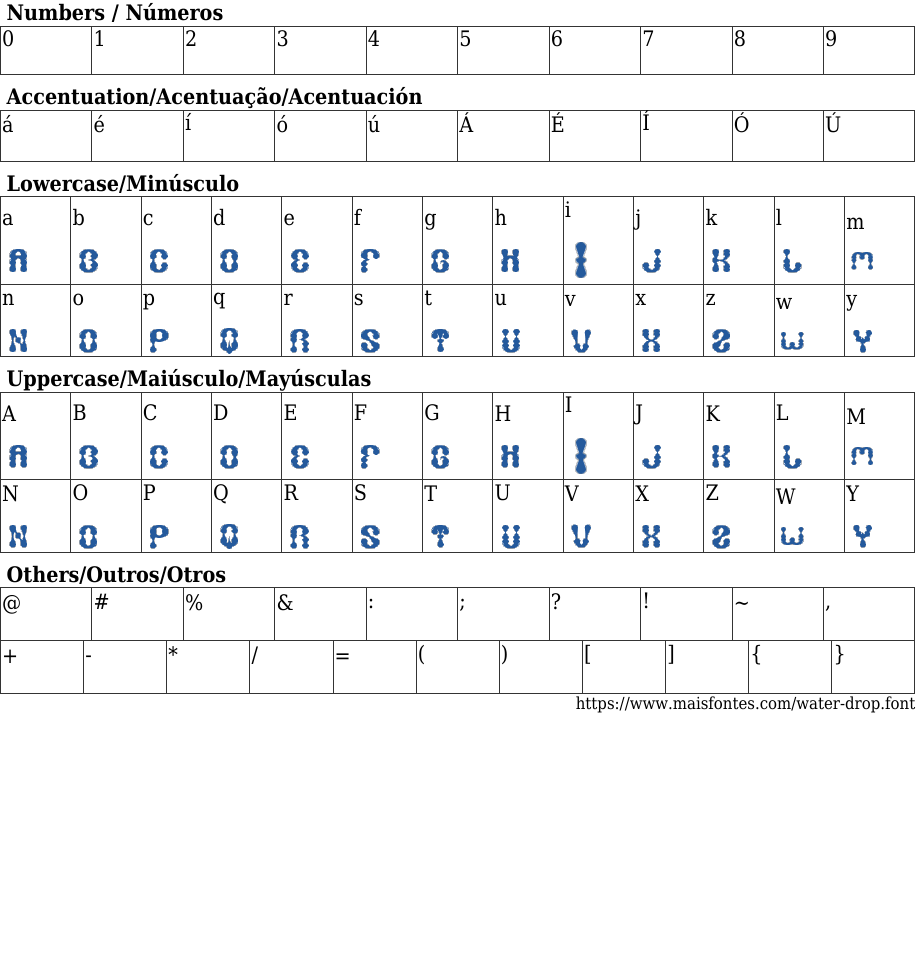
Water Drop Font Free Download . The water drop font has been downloaded. Every font is free to download! Download and install the water drop font by weknow. For commercial usage of this font, the purchase of this license is required. Click to find the best 137 free fonts in the liquid style. Drip letters are used for graffiti and paint designs. With a modern design and lightweight construction,. Water drop font created by weknow font foundry. Dripping fonts have letters that look like they are wet or have liquid flowing down them. The 'free water fonts' offer an easy and convenient way to stay hydrated on the go. Every font is free to download! Click to find the best 121 free fonts in the water style. Donate here for keep makes me raising the new font
Download and install the water drop font by weknow. Dripping fonts have letters that look like they are wet or have liquid flowing down them. Drip letters are used for graffiti and paint designs. Click to find the best 137 free fonts in the liquid style. Every font is free to download! Donate here for keep makes me raising the new font Every font is free to download! Click to find the best 121 free fonts in the water style. The 'free water fonts' offer an easy and convenient way to stay hydrated on the go. The water drop font has been downloaded.
Water Drop Font Free Download and install the water drop font by weknow. Every font is free to download! Click to find the best 137 free fonts in the liquid style. With a modern design and lightweight construction,. Download and install the water drop font by weknow. Every font is free to download! Water drop font created by weknow font foundry. Donate here for keep makes me raising the new font Dripping fonts have letters that look like they are wet or have liquid flowing down them. Click to find the best 121 free fonts in the water style. For commercial usage of this font, the purchase of this license is required. The 'free water fonts' offer an easy and convenient way to stay hydrated on the go. Drip letters are used for graffiti and paint designs. The water drop font has been downloaded.
Font Driplet Raindrops Water Drops Lettering fonts, Typography logo fonts, Creative fonts Water Drop Font Free Download Drip letters are used for graffiti and paint designs. The 'free water fonts' offer an easy and convenient way to stay hydrated on the go. Dripping fonts have letters that look like they are wet or have liquid flowing down them. Water drop font created by weknow font foundry. Donate here for keep makes me raising the new font For. Water Drop Font Free Download.
Waterdrop Font Download Free Business Fonts Water Drop Font Free Download Every font is free to download! Click to find the best 137 free fonts in the liquid style. The water drop font has been downloaded. With a modern design and lightweight construction,. Download and install the water drop font by weknow. For commercial usage of this font, the purchase of this license is required. The 'free water fonts' offer an. Water Drop Font Free Download.
27 Water Fonts to Download (Free & Premium) Water Drop Font Free Download Water drop font created by weknow font foundry. Donate here for keep makes me raising the new font With a modern design and lightweight construction,. The 'free water fonts' offer an easy and convenient way to stay hydrated on the go. Download and install the water drop font by weknow. Every font is free to download! Dripping fonts have letters. Water Drop Font Free Download.
Water drop Free Font Download MaisFontes Water Drop Font Free Download Click to find the best 121 free fonts in the water style. Donate here for keep makes me raising the new font The water drop font has been downloaded. Dripping fonts have letters that look like they are wet or have liquid flowing down them. For commercial usage of this font, the purchase of this license is required. With a. Water Drop Font Free Download.
Premium Vector Cartoon water drops font, funny blue alphabet Water Drop Font Free Download The water drop font has been downloaded. For commercial usage of this font, the purchase of this license is required. The 'free water fonts' offer an easy and convenient way to stay hydrated on the go. Every font is free to download! Click to find the best 121 free fonts in the water style. Water drop font created by weknow. Water Drop Font Free Download.
Premium Vector Water drop font on white background Water Drop Font Free Download For commercial usage of this font, the purchase of this license is required. The 'free water fonts' offer an easy and convenient way to stay hydrated on the go. Water drop font created by weknow font foundry. With a modern design and lightweight construction,. Drip letters are used for graffiti and paint designs. Donate here for keep makes me raising. Water Drop Font Free Download.
Buy Water Splash Font And Make Breathtaking Water Typography Arts Water Drop Font Free Download Dripping fonts have letters that look like they are wet or have liquid flowing down them. Every font is free to download! Donate here for keep makes me raising the new font Every font is free to download! The water drop font has been downloaded. For commercial usage of this font, the purchase of this license is required. Drip letters. Water Drop Font Free Download.
Water Drops Font Images, HD Pictures For Free Vectors Download Water Drop Font Free Download The 'free water fonts' offer an easy and convenient way to stay hydrated on the go. Water drop font created by weknow font foundry. Dripping fonts have letters that look like they are wet or have liquid flowing down them. Drip letters are used for graffiti and paint designs. With a modern design and lightweight construction,. Click to find the. Water Drop Font Free Download.
Water Drop Font Download Water Drop Font Free Download Every font is free to download! Donate here for keep makes me raising the new font Drip letters are used for graffiti and paint designs. Click to find the best 137 free fonts in the liquid style. The water drop font has been downloaded. Every font is free to download! Dripping fonts have letters that look like they are wet. Water Drop Font Free Download.